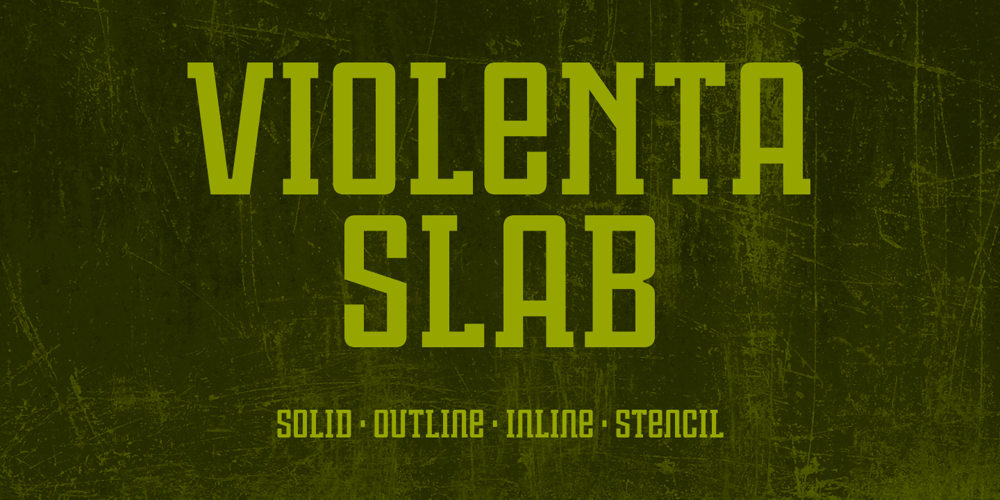
Violenta Slab Font Family was designed by Pablo Balcells and published by Graviton. Violenta Slab contains 8 styles and family package options. Violenta Slab font family has been designed for Graviton Font Foundry by Pablo Balcells in 2015. It is a display, geometric typeface, with a condensed design and sharp angles that provides an aggresive and strong appearence. Violenta Slab consists of 8 styles. Each containing glyph coverage for several languages.